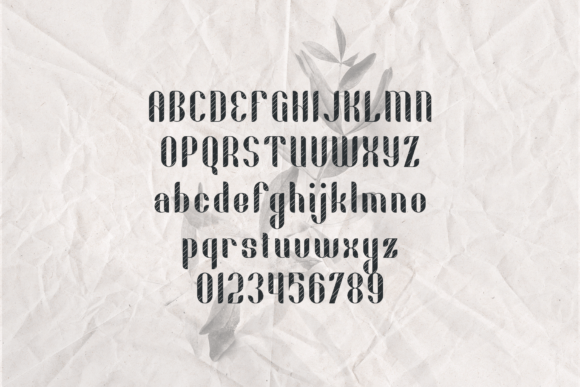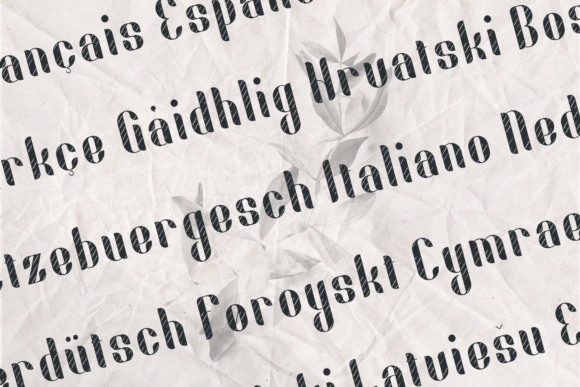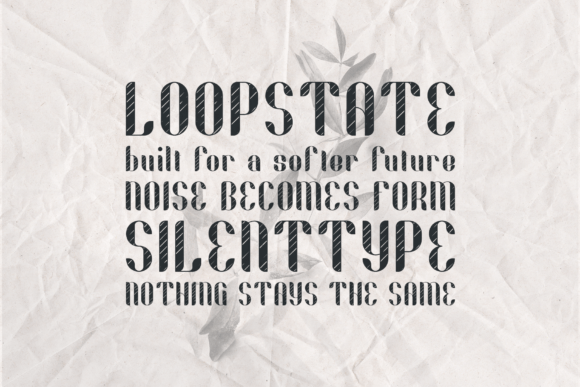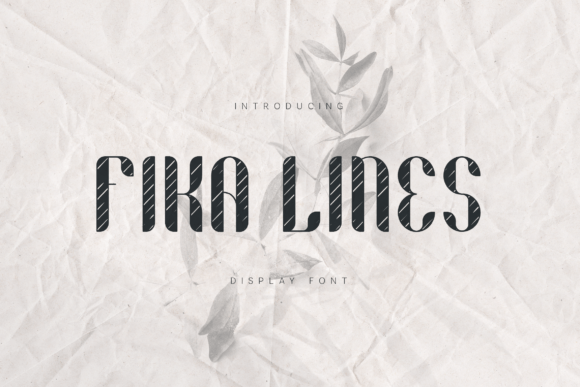
Introduction to Fika Lines Font
Fika Lines is a tall, sophisticated display font that merges modern deco proportions with a distinct textured aesthetic.
The typeface features narrow, condensed letterforms with smooth, rounded curves that give it a sleek and rhythmic appearance Its most defining characteristic is the decorative pattern of diagonal hairline stripes etched across the stems of every character, creating a sense of movement and vintage-industrial flair.